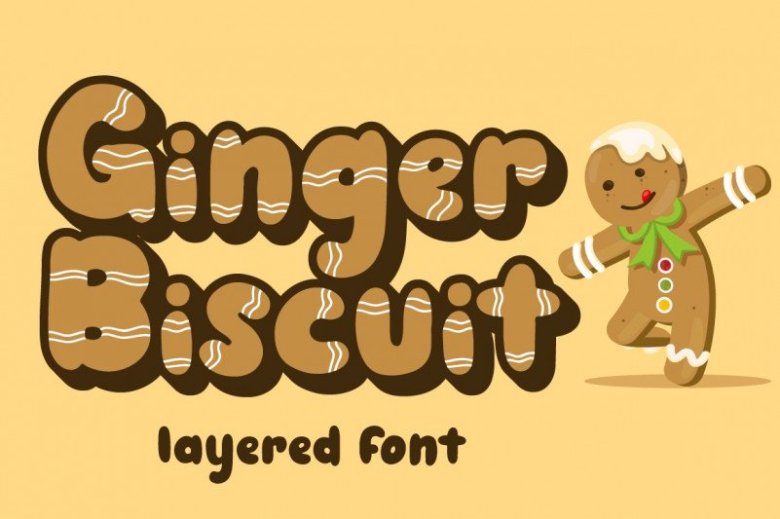
Ginger Biscuit Display Font
Ginger Biscuit Display Font is a display typeface with a lot of personality and different alternatives contains inline, layers as shadows. It’s designed and shared by Attype Studio. Inspired by winter snack Gingerbread man, Ginger Biscuit is christmas typeface.
perfect for making merry christmas images for card & super easy to use for 3D effect using Ginger Biscuit font, make combination of this font to create amazing design!
Ginger Biscuit Display typeface is perfect for children product, branding, logo, invitation, stationery, product packaging, merchandise, monogram, blog design, game titles, cute style design, Book/Cover Title and more.